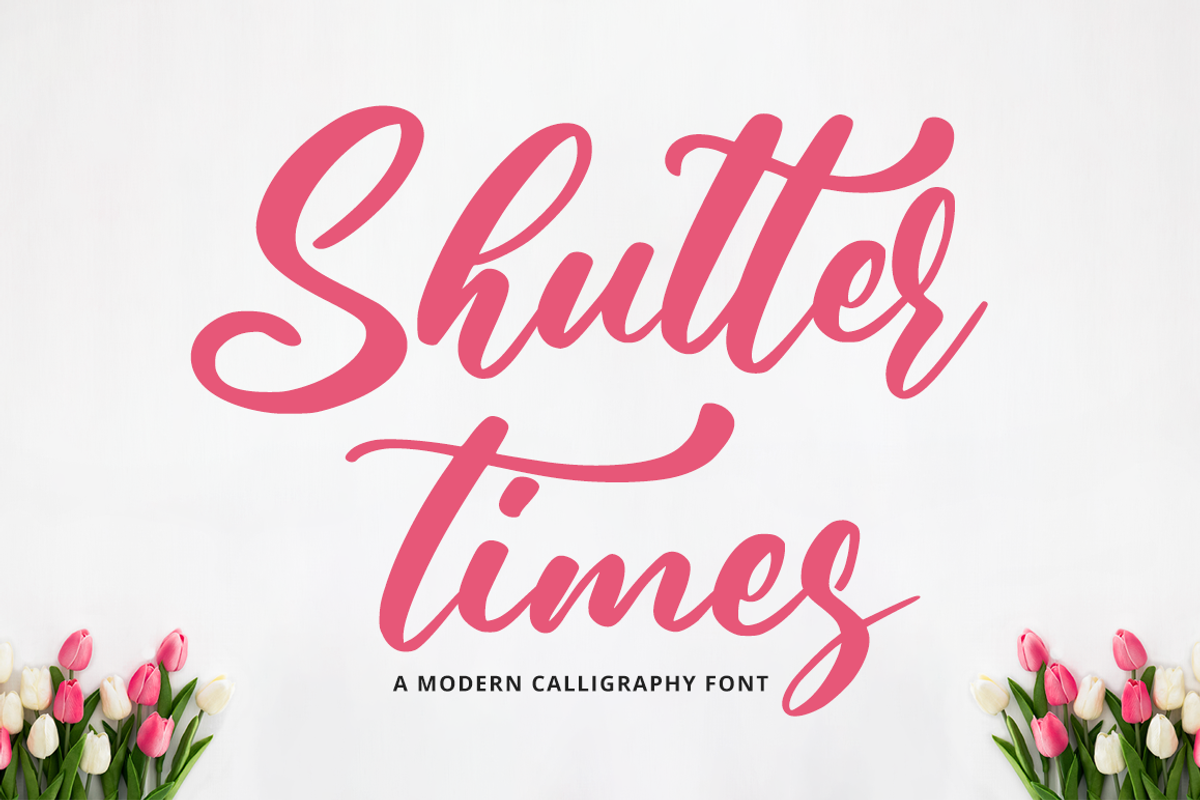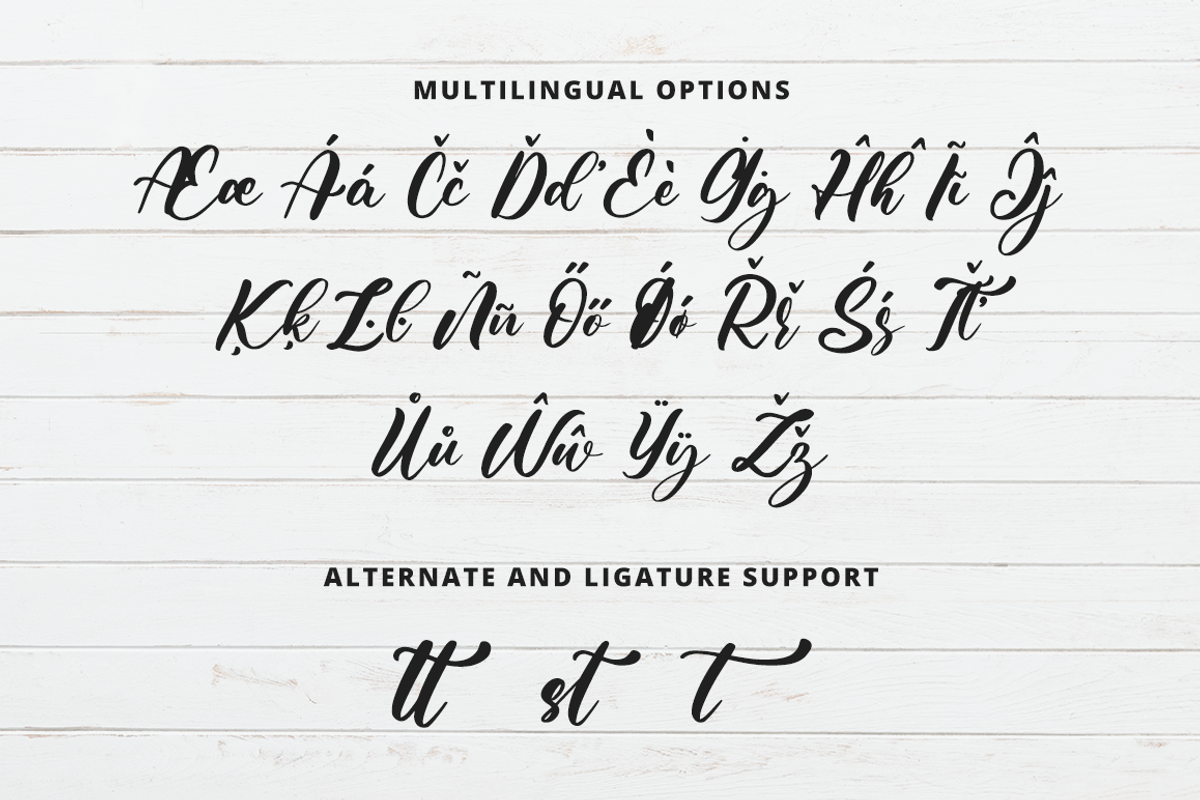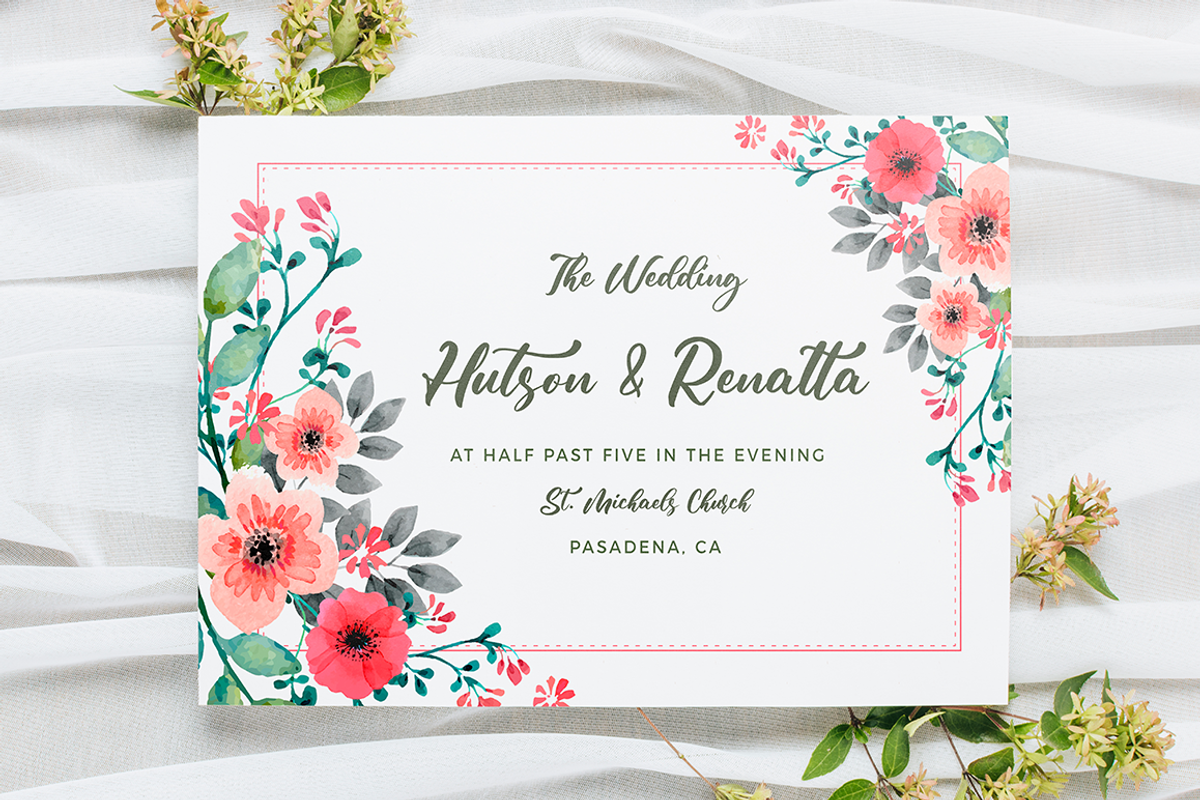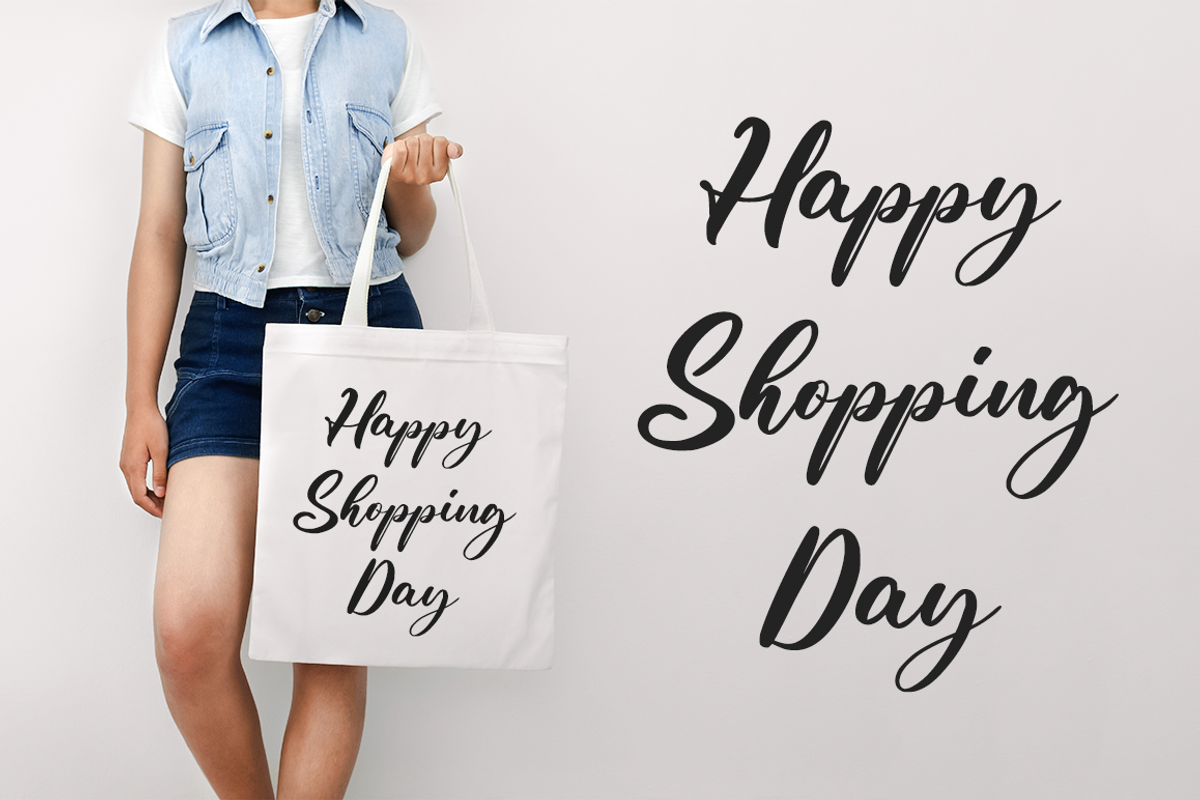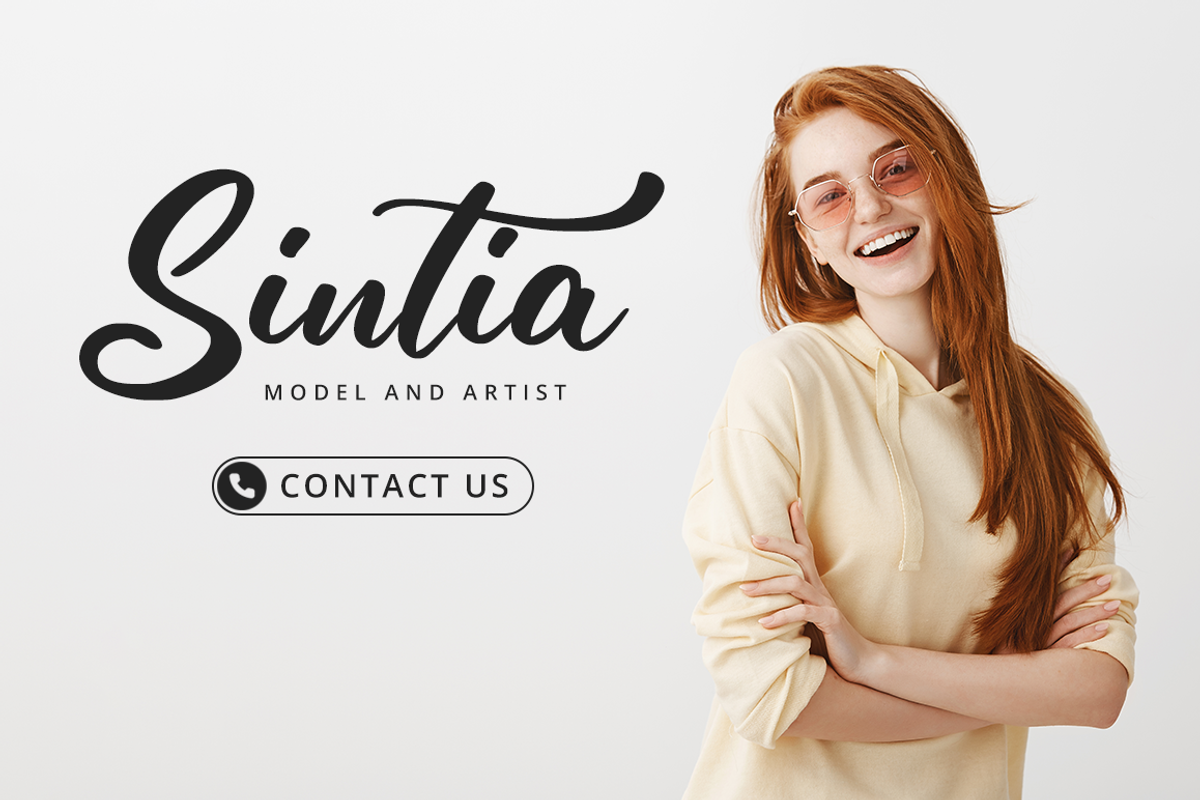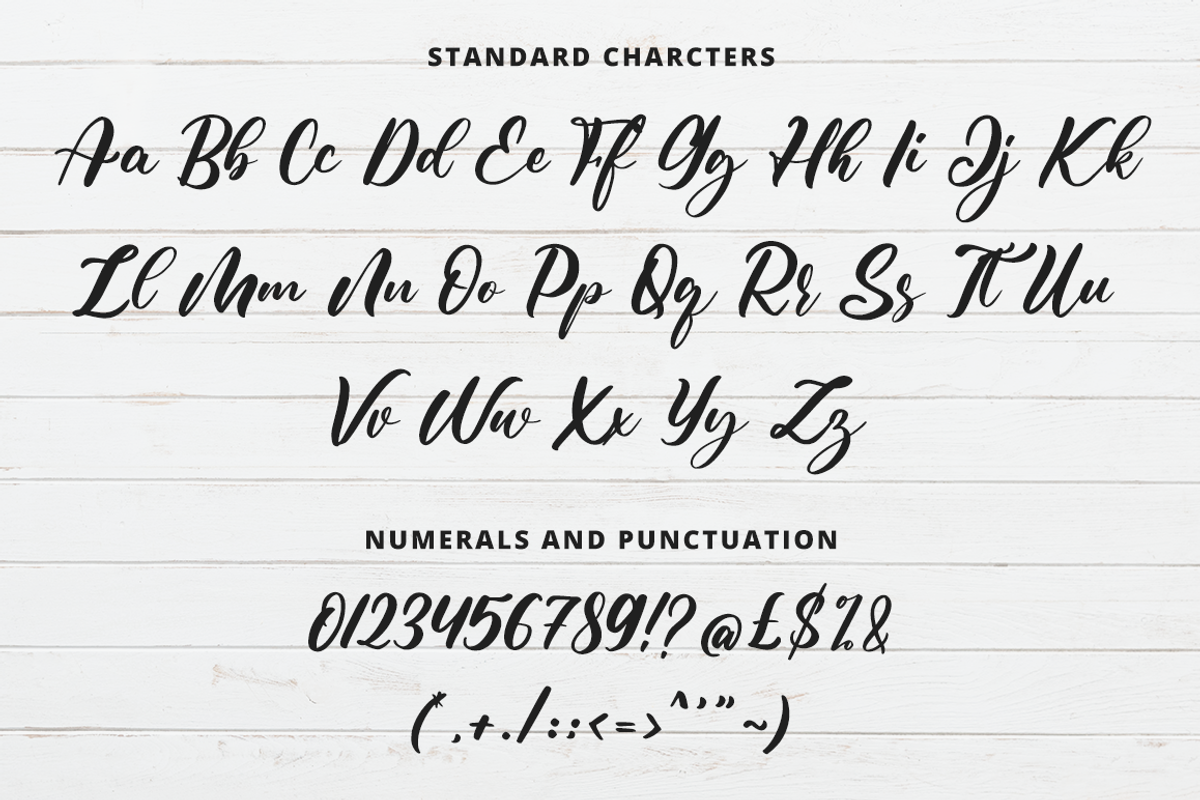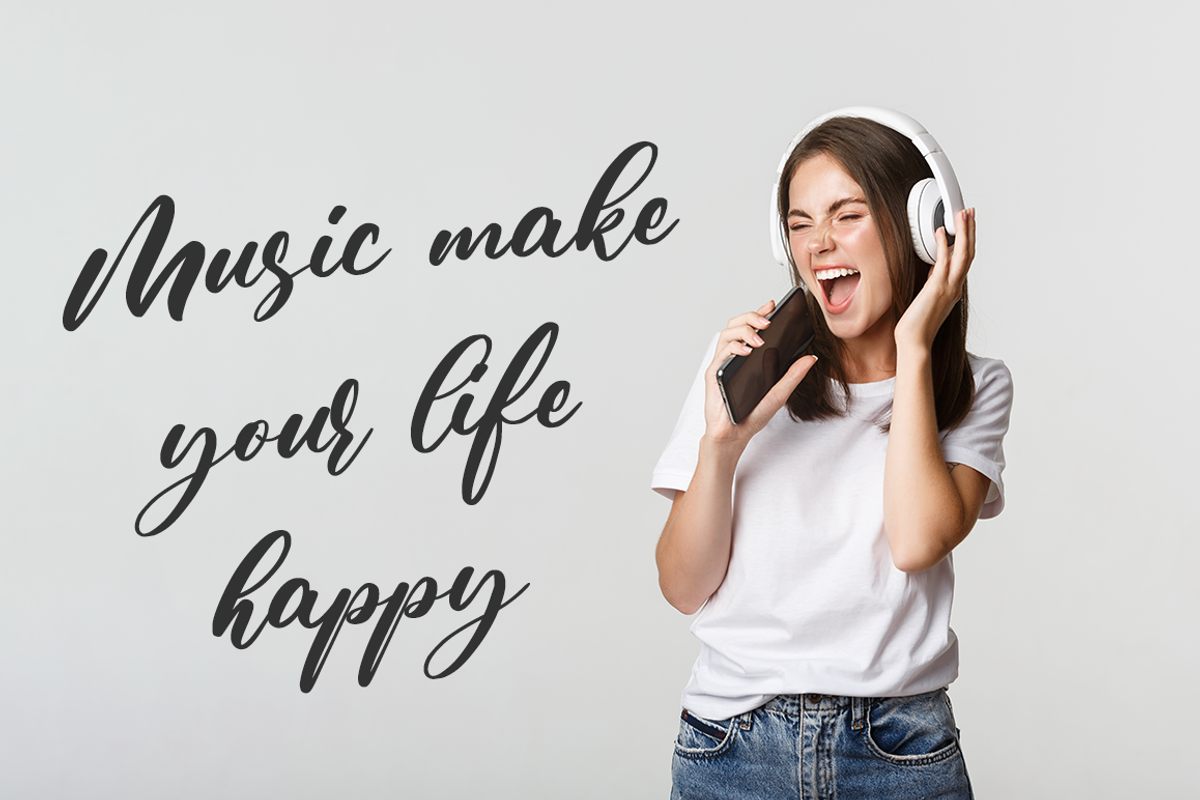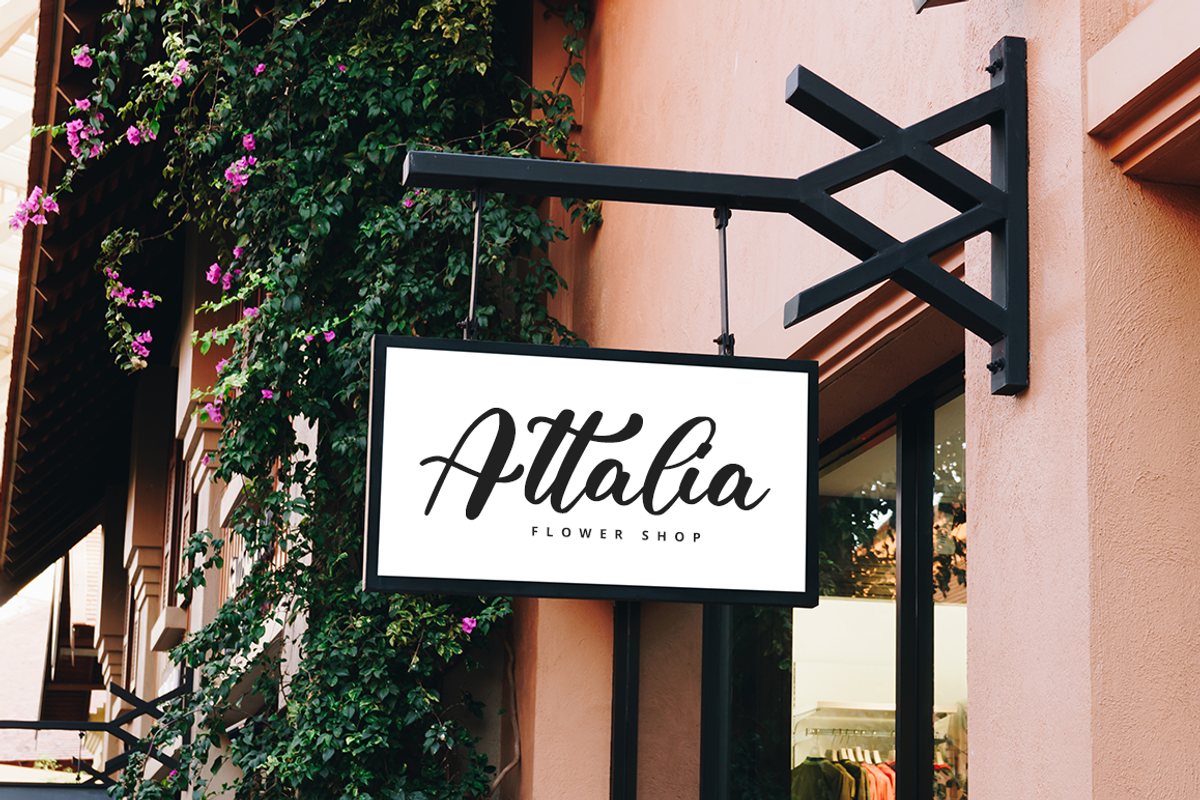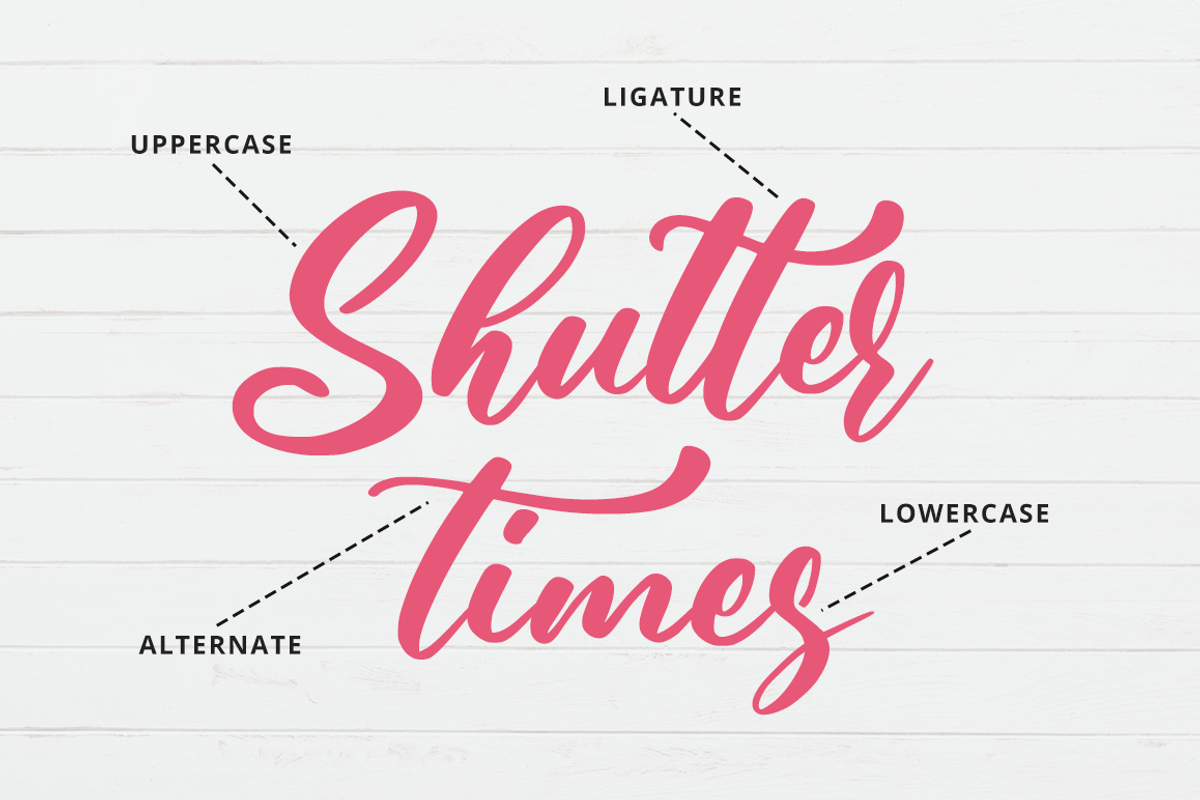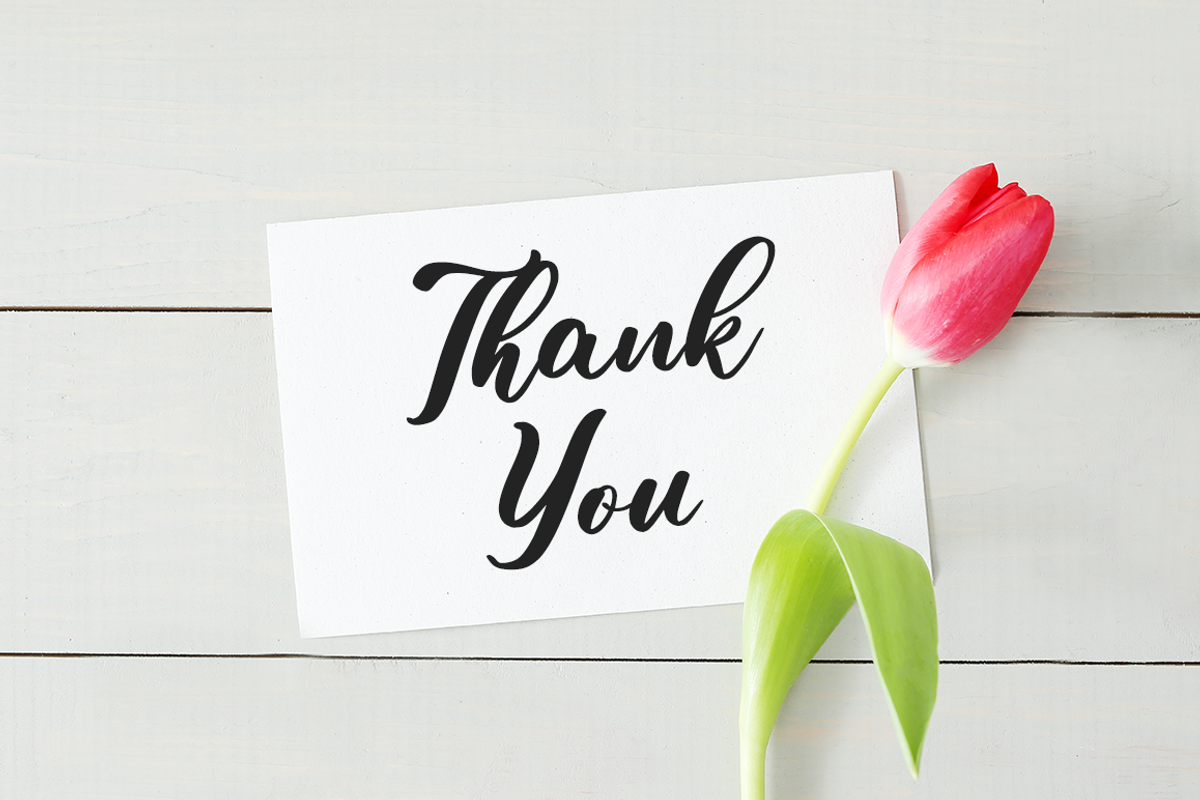
Shutter Times Font
Shutter Times is a romantic script font. This font is neatly crafted and highly detailed. Whatever the topic, this font will be a wonderful asset to your font library, as it has the potential to enhance any creation.